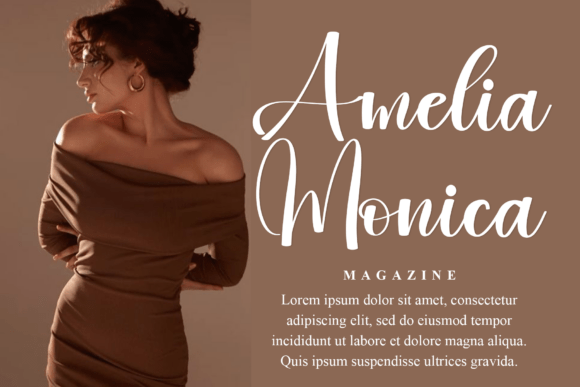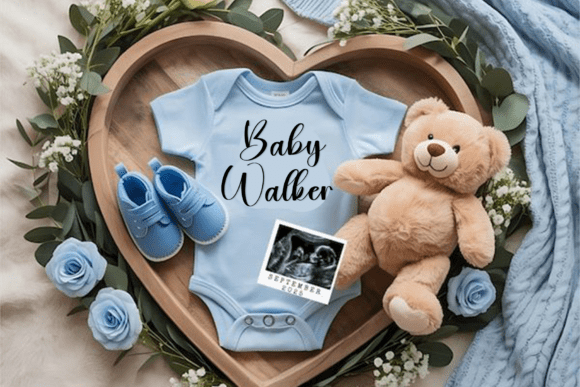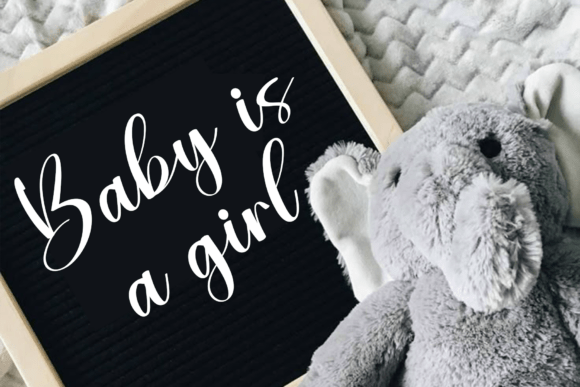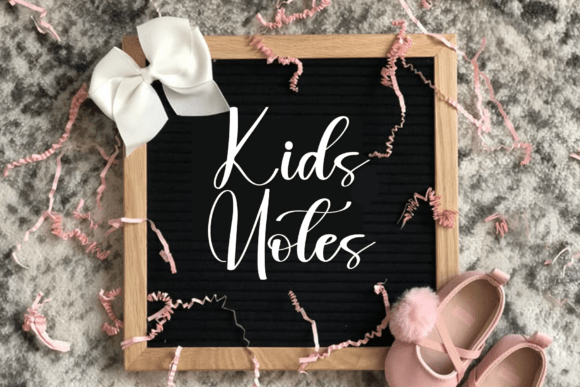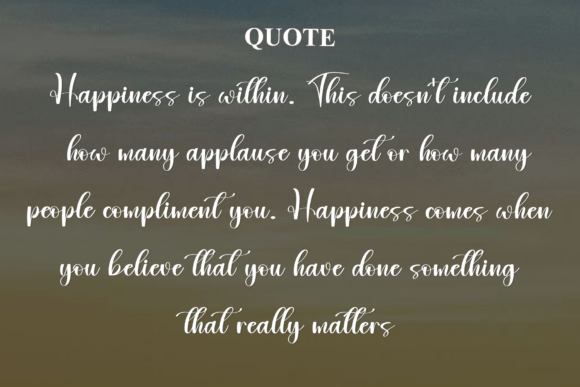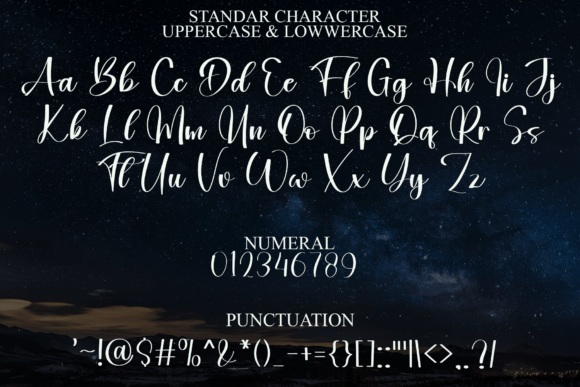
Baby Boy Font: The Perfect Choice for Creative and Friendly Designs
Are you looking for a font that can add a touch of warmth and friendliness to your designs? Look no further than the Baby Boy font! This casual and creative font is perfect for personal projects, invitations, social media graphics, and more. In this article, we’ll explore the features and benefits of the Baby Boy font and why it’s a great choice for designers and crafters.
The Characteristics of Baby Boy Font
The Baby Boy font is characterized by its round, playful strokes that create a relaxed and approachable feel. The font’s charming, hand-drawn aesthetic adds a fun and unique touch to any design, making it perfect for projects that require a personal touch. The font is designed to be highly legible and versatile, making it suitable for a wide range of applications.
Key Features of Baby Boy Font
- Casual and Creative: The Baby Boy font has a casual and creative feel that makes it perfect for personal projects and social media graphics.
- Warm and Friendly: The font’s round, playful strokes create a warm and friendly feel that’s perfect for invitations, greeting cards, and other personal designs.
- Highly Legible: The font is designed to be highly legible, making it easy to read and understand.
- Versatile: The Baby Boy font is versatile and can be used for a wide range of applications, from personal projects to commercial designs.
Why Choose Baby Boy Font?
So, why choose the Baby Boy font for your designs? Here are a few reasons:
- Unique and Creative: The Baby Boy font has a unique and creative aesthetic that sets it apart from other fonts.
- Easily Customizable: The font is easily customizable, making it easy to adjust to fit your design needs.
In conclusion, the Baby Boy font is a great choice for designers and crafters who need a casual and creative font that exudes warmth and friendliness. With its round, playful strokes and charming, hand-drawn aesthetic, this font is perfect for personal projects, invitations, social media graphics, and more. The font’s PUA Encoded glyphs make it compatible with various application engines, and its highly legible and versatile design make it suitable for a wide range of applications.